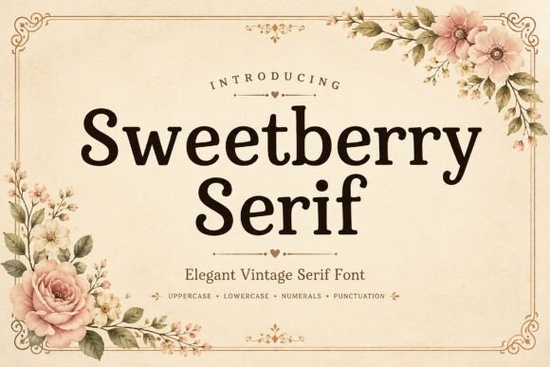
Sweetberry Serif Font is a versatile and elegant typeface that brings a warm, personal touch to any design project. Whether you're working on branding, packaging, or social media graphics, this font offers a timeless look with modern appeal. Its soft curves and vintage-inspired details make it ideal for both casual and professional use, giving your work a unique character that stands out.
Designed with care, Sweetberry Serif Font blends classic serif elements with gentle, nostalgic flair. This combination makes it suitable for a wide range of applications, from wedding invitations to café menus. Its balanced letterforms ensure readability without sacrificing style, making it a go-to choice for designers who want to add a refined yet approachable feel to their work.
If you're looking for a font that feels both familiar and fresh, Sweetberry Serif Font is an excellent option. It works well in both digital and print formats, offering flexibility for different creative needs. Whether you're a small business owner, a craft maker, or a designer, this font can help elevate your visual identity with its charming personality.
What Makes Sweetberry Serif Font Stand Out?
Sweetberry Serif Font distinguishes itself through its thoughtful design and adaptability. The font’s soft curves and vintage details give it a handcrafted feel, while its structured layout ensures it remains legible at various sizes. This balance between elegance and functionality makes it a reliable choice for a variety of projects.
One of the key strengths of Sweetberry Serif Font is its ability to fit into different design aesthetics. It can complement modern minimalism or add a touch of nostalgia to retro-themed designs. This versatility makes it a valuable addition to any designer’s toolkit, especially for those working on brand identities, editorial layouts, or promotional materials.
The font also works well in combination with other typefaces. Pairing it with a sans-serif or a bold display font can create a dynamic contrast that enhances the overall visual hierarchy of a design. This flexibility allows for creative experimentation without compromising clarity or professionalism.
How to Use Sweetberry Serif Font in Your Projects
There are many ways to incorporate Sweetberry Serif Font into your work. For branding purposes, it can be used for logos, business cards, or website headers to create a cohesive and memorable identity. Its warm tone makes it particularly effective for businesses that want to convey a sense of authenticity and craftsmanship.
In editorial design, Sweetberry Serif Font can enhance the visual appeal of magazines, newsletters, or blog posts. Its readable structure ensures that text remains easy to follow, while its stylistic elements add a touch of sophistication. This makes it a great choice for publications that aim to blend form and function.
For social media content, the font can be used in captions, banners, or graphic overlays. Its friendly and approachable look helps build a connection with audiences, making it ideal for brands that want to maintain a personal and engaging presence online.
Similar Fonts You Might Like
If you enjoy the look of Sweetberry Serif Font, there are other fonts that offer similar qualities. Georgia Praline Font provides a similar vintage feel with a slightly more dramatic appearance. Luxurimo Font adds a touch of luxury and refinement, making it perfect for high-end branding.
If you’re interested in seeing how Sweetberry Serif Font looks in action, you can visit the Creative Fabrica website and search for the font using the provided link. This will give you a better idea of how it performs in real-world applications.
Sweetberry Serif Font is a valuable resource for anyone looking to add warmth and character to their designs. Its combination of classic structure and vintage charm makes it a standout choice for a variety of creative projects.
- Try pairing it with a bold sans-serif for contrast
- Use it for headings and titles to add visual interest
- Experiment with different sizes and weights for varied effects
- Combine it with complementary colors for a cohesive look
Whether you're a seasoned designer or just starting out, Sweetberry Serif Font offers a simple yet effective way to enhance your work. Its ease of use and stylish appearance make it a practical choice for a wide range of design needs.